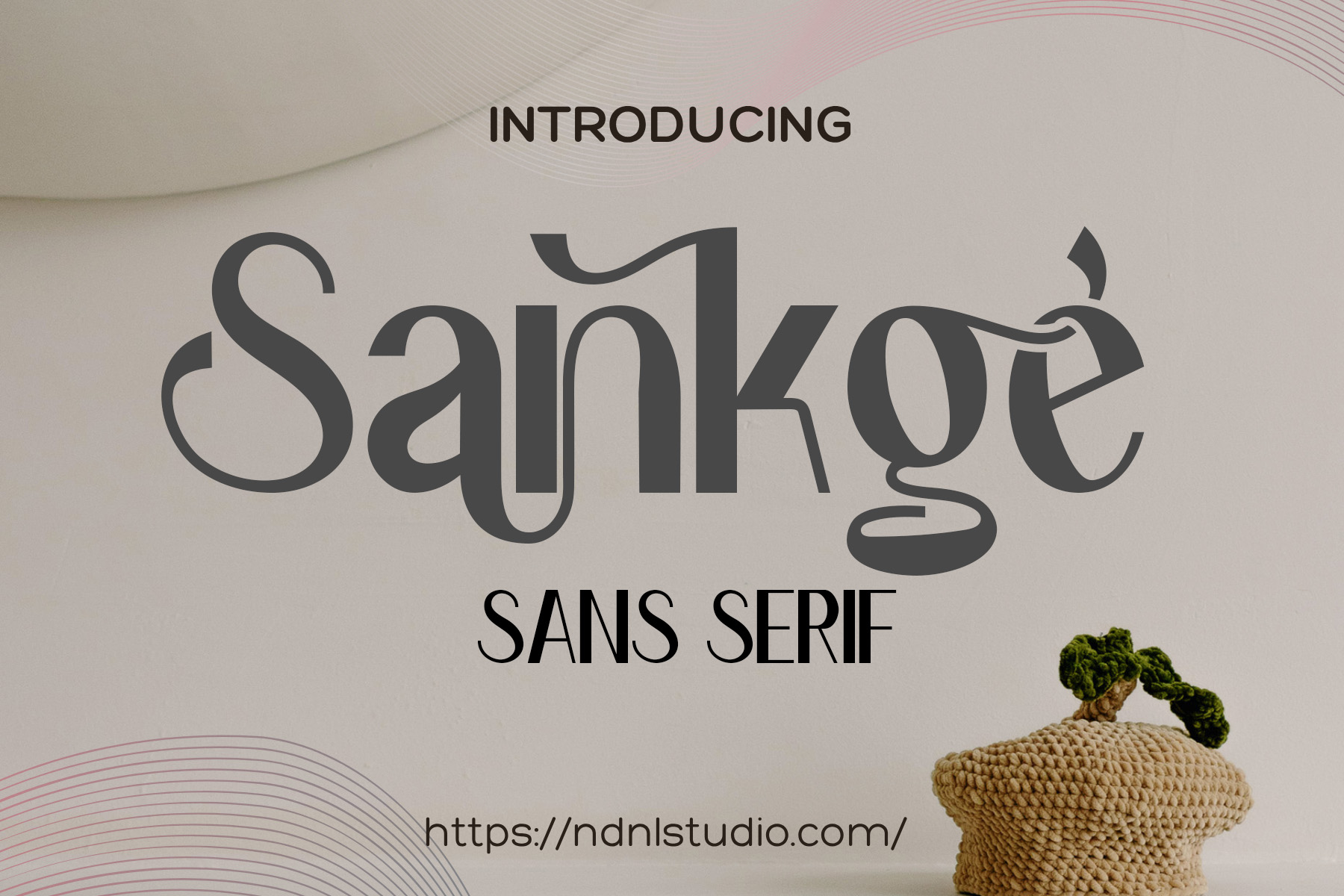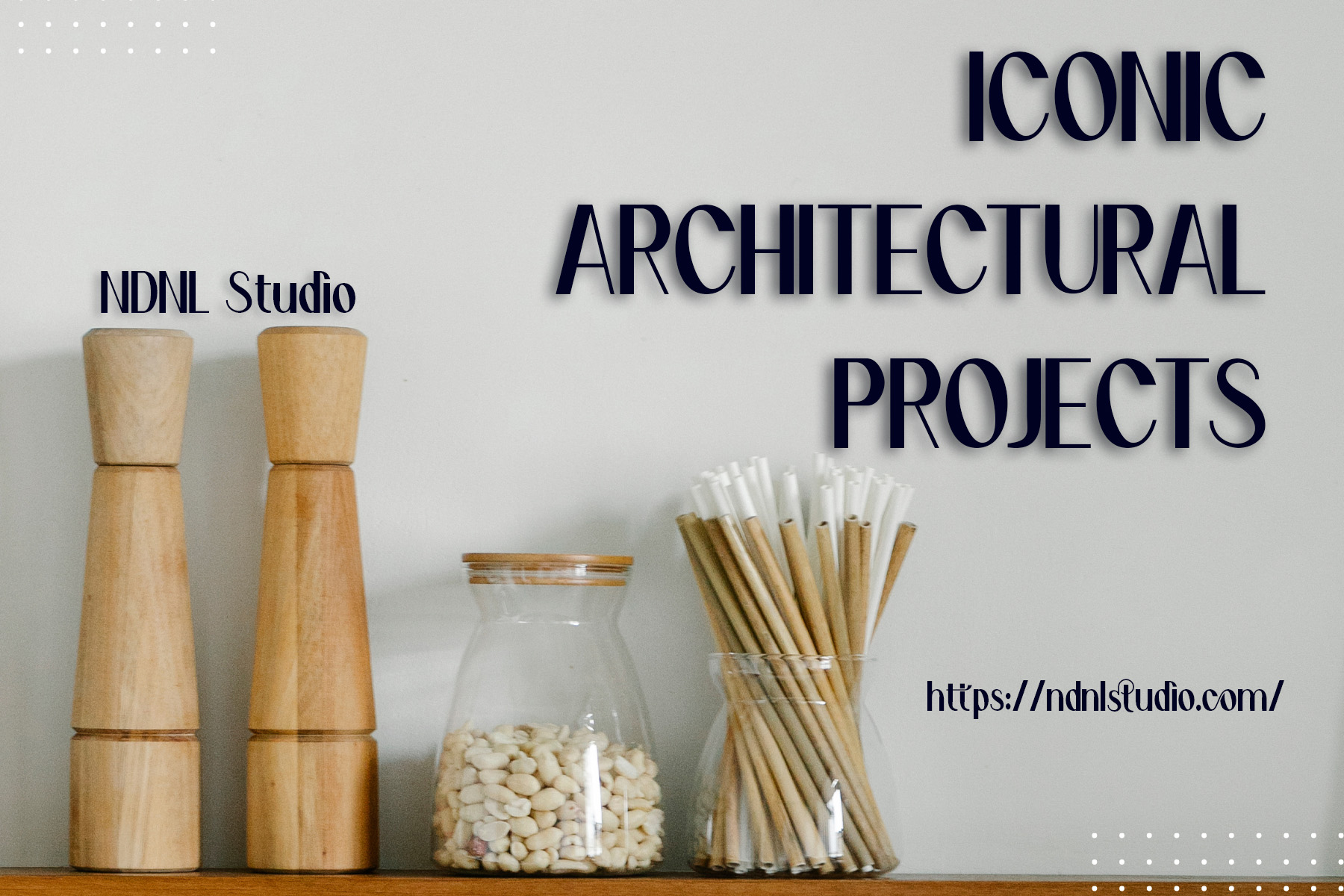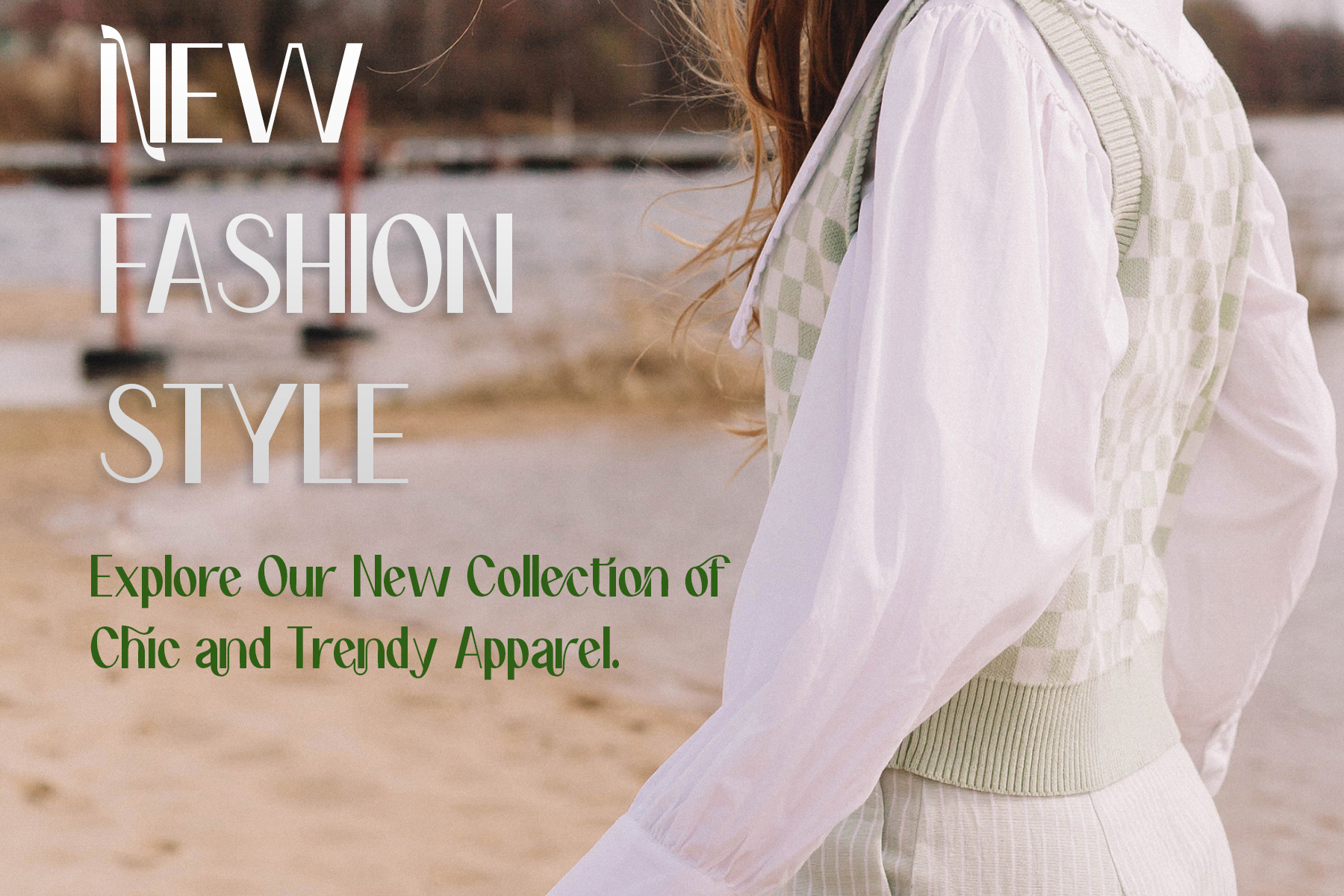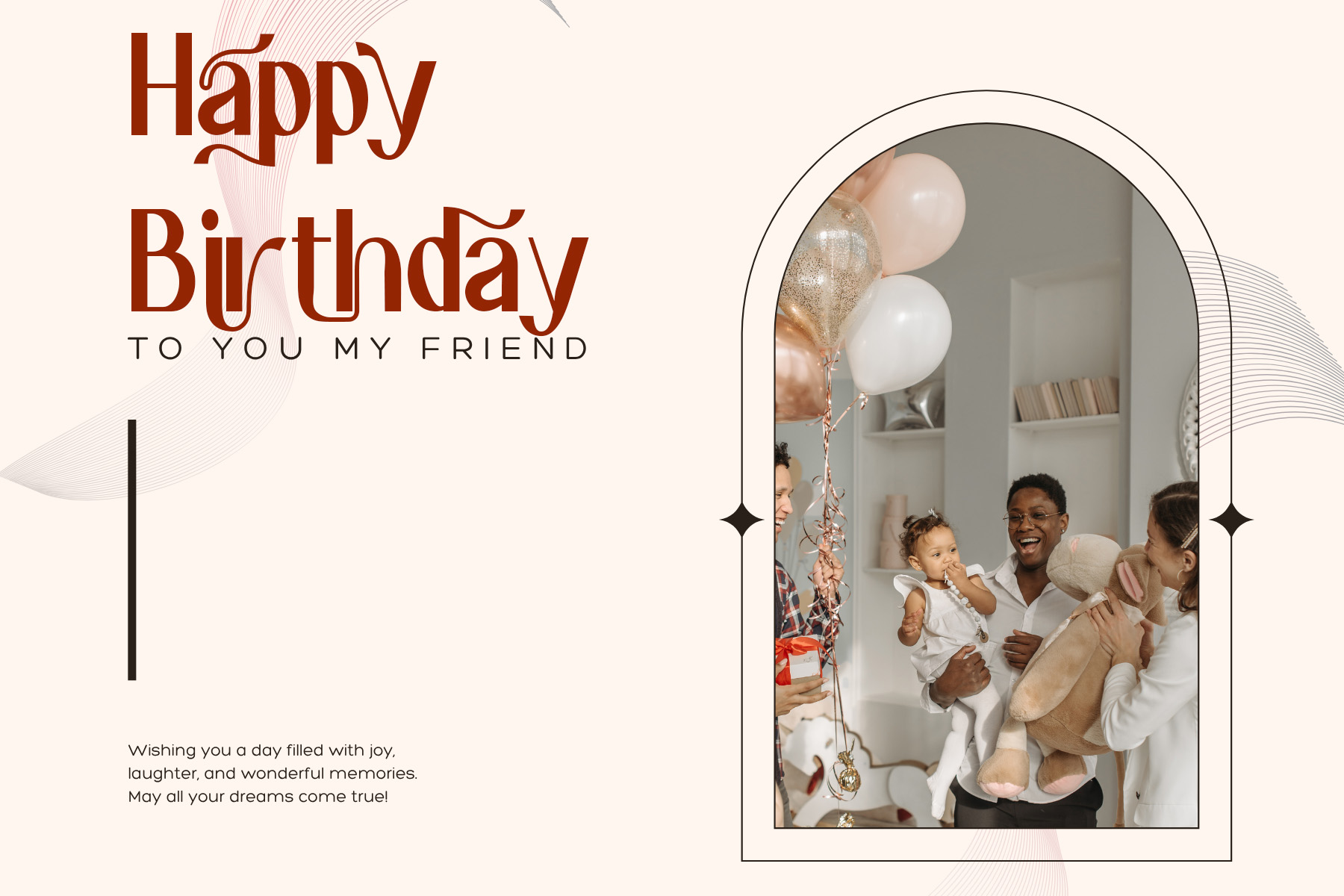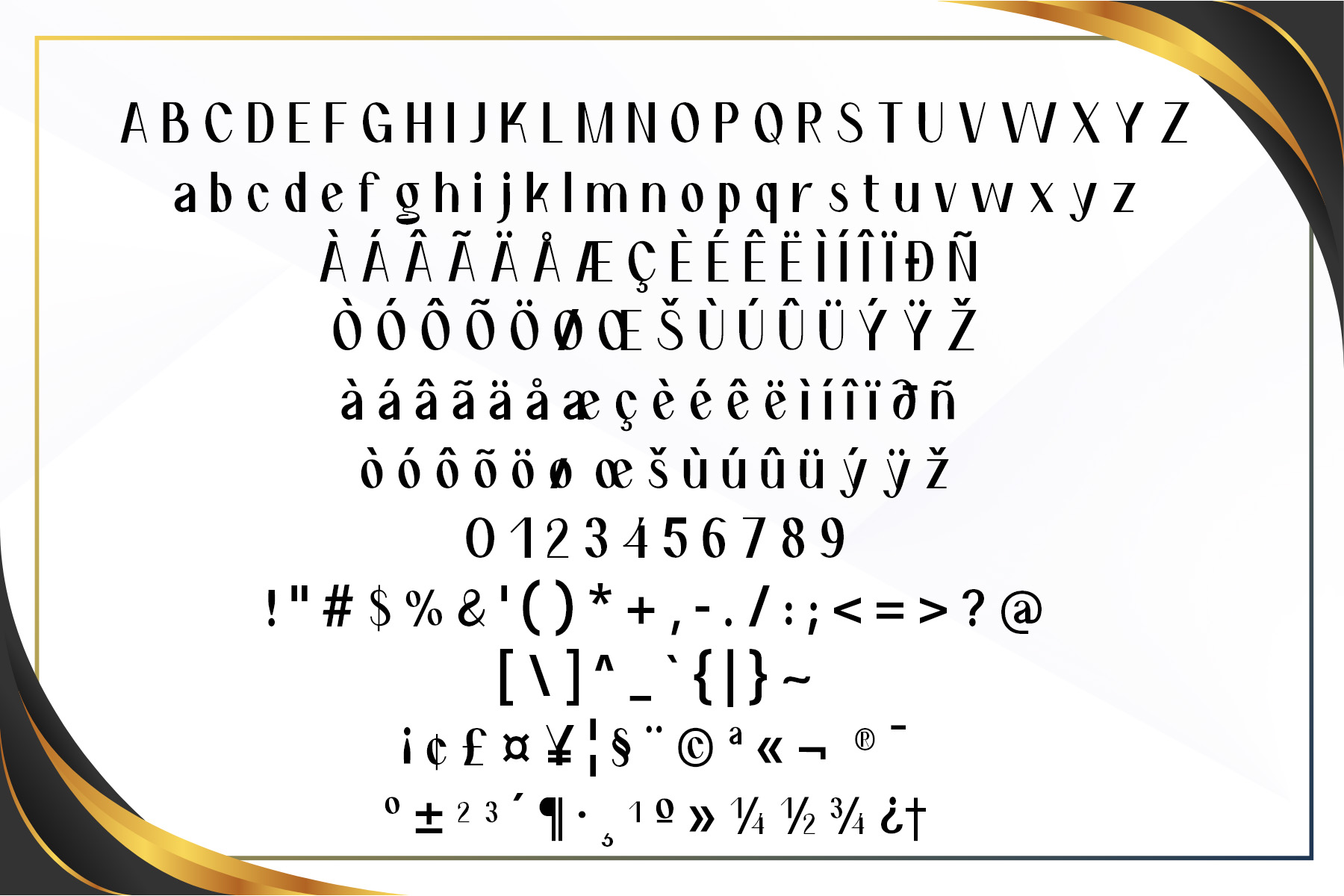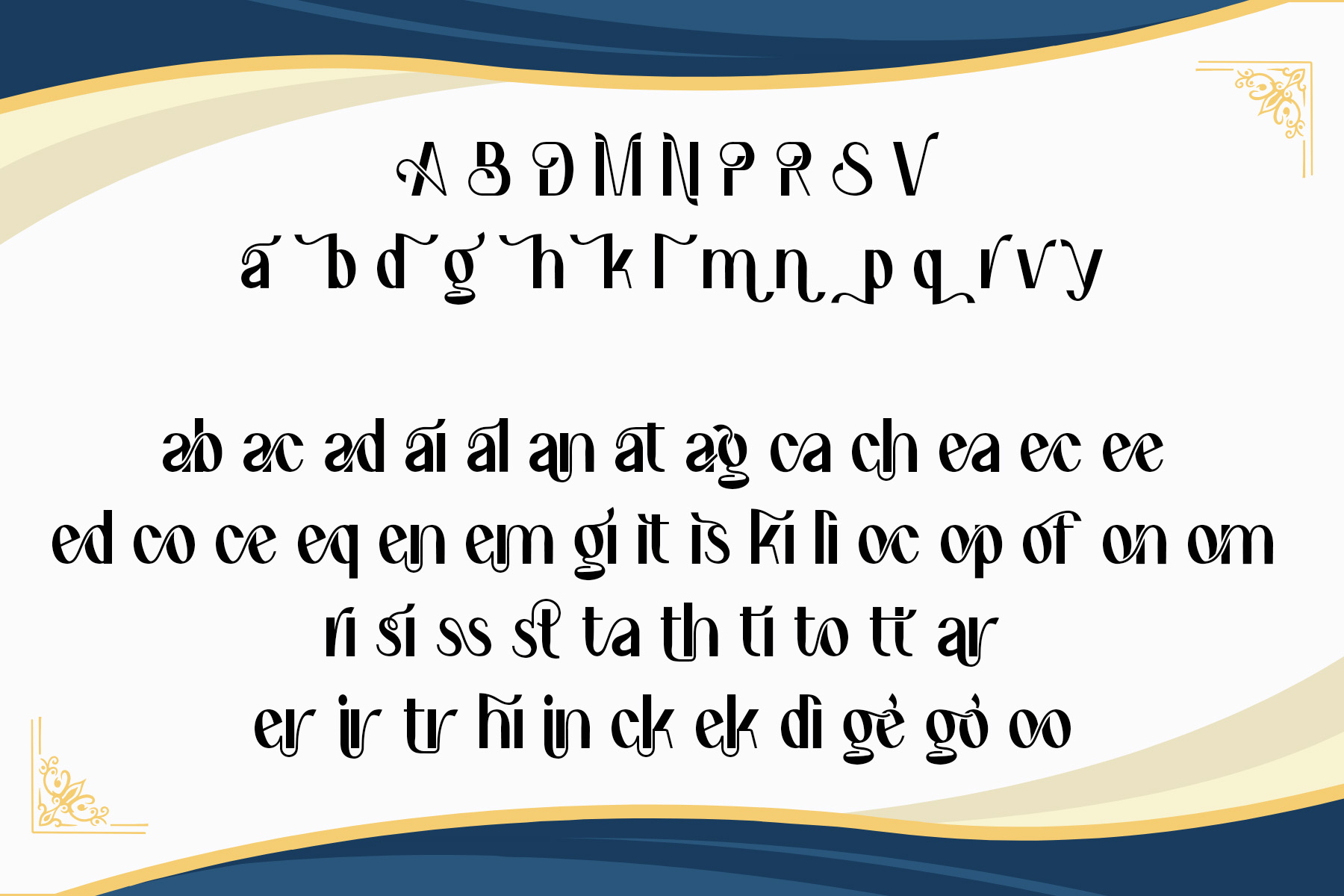
Sankge – Sans Serif Font
Introducing Sankge !
Sankge is a unique sans serif typeface that blends modern elegance with artistic curves. Its distinctive letterforms and stylish alternates make it perfect for branding, packaging, logos, posters, and creative projects. Designed to stand out, Sankge brings both sophistication and personality to your typography, making every word a statement.